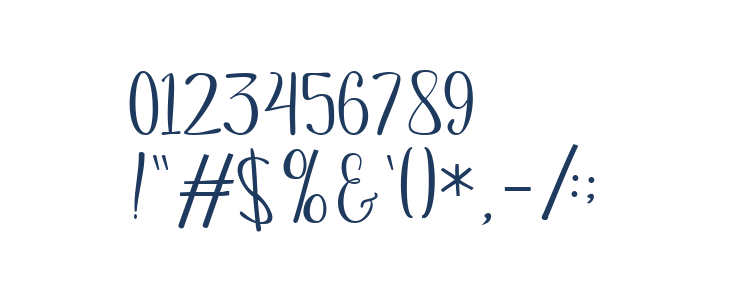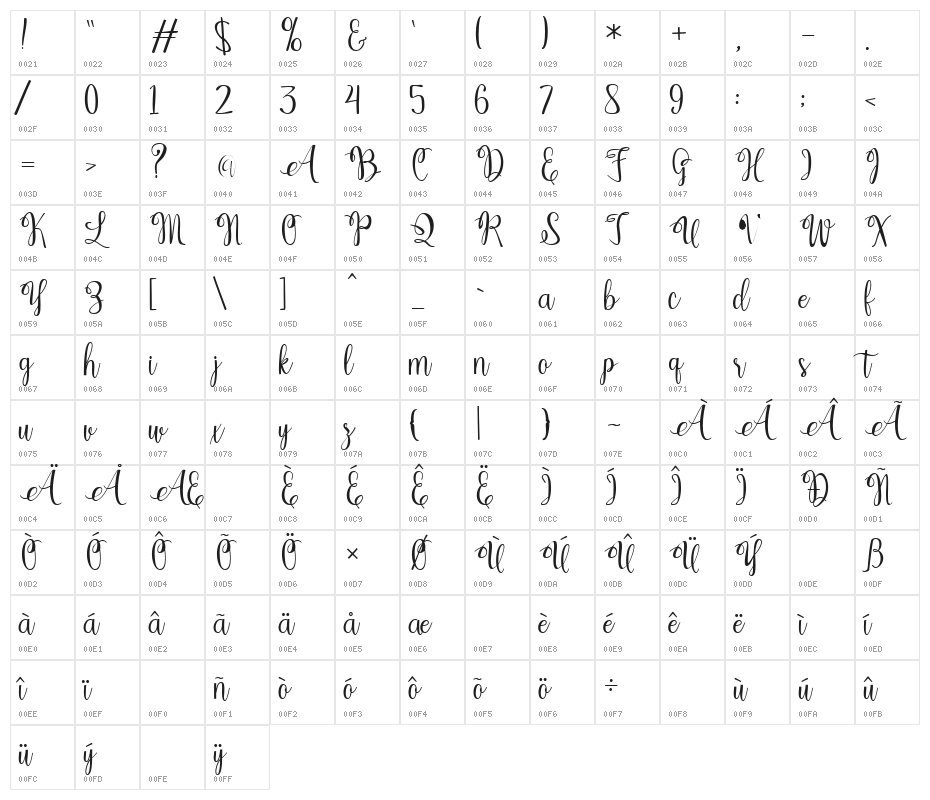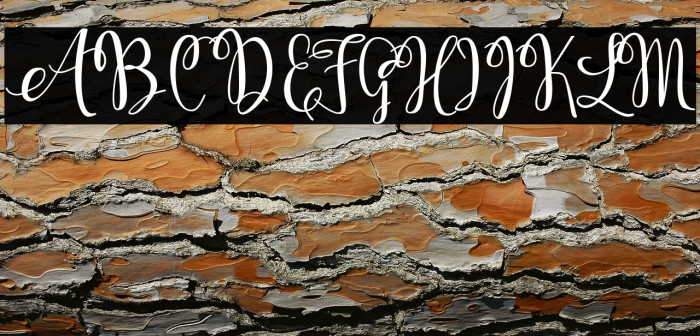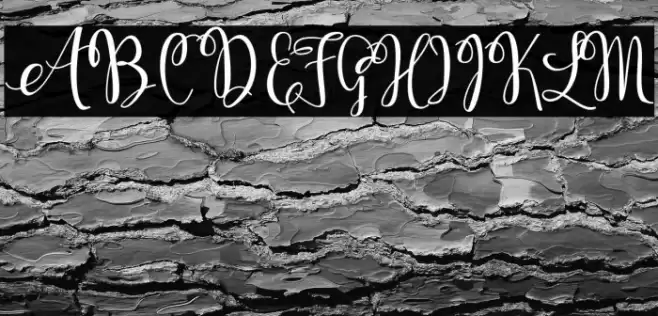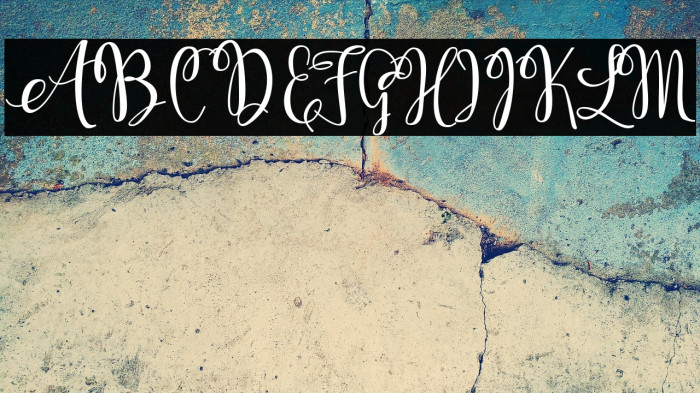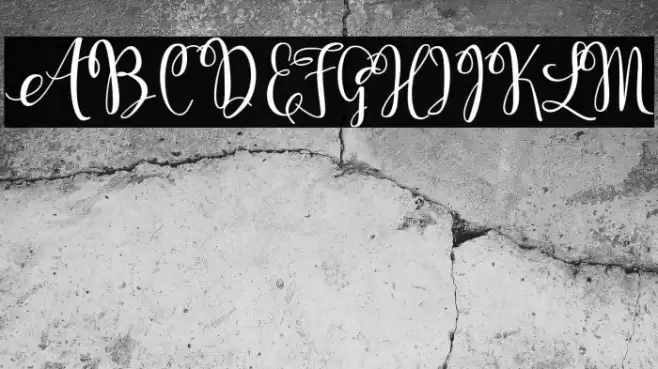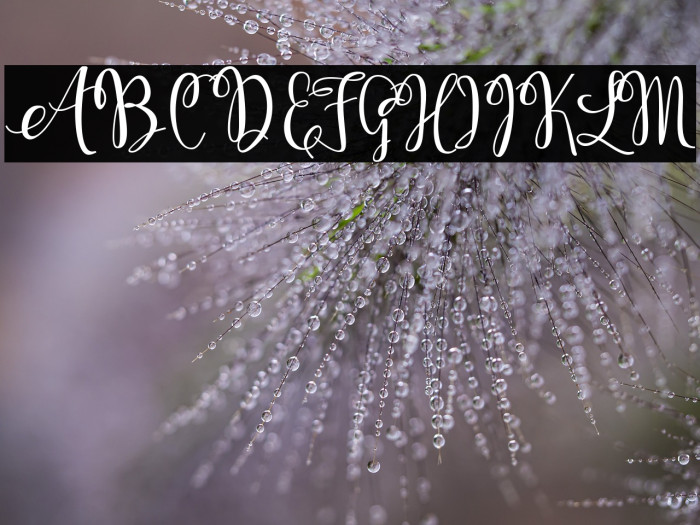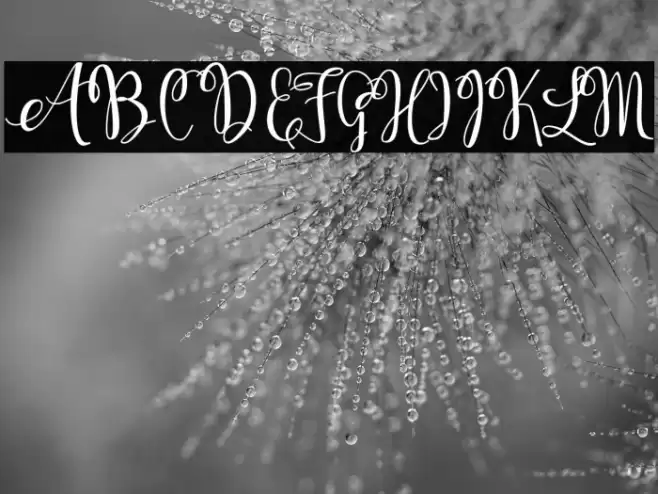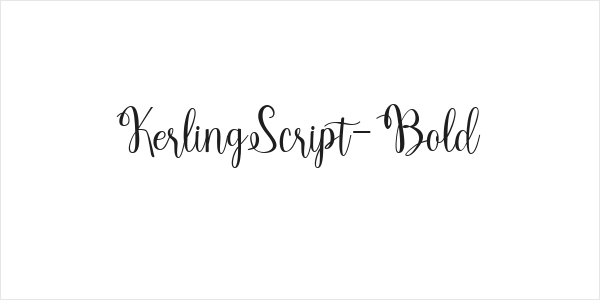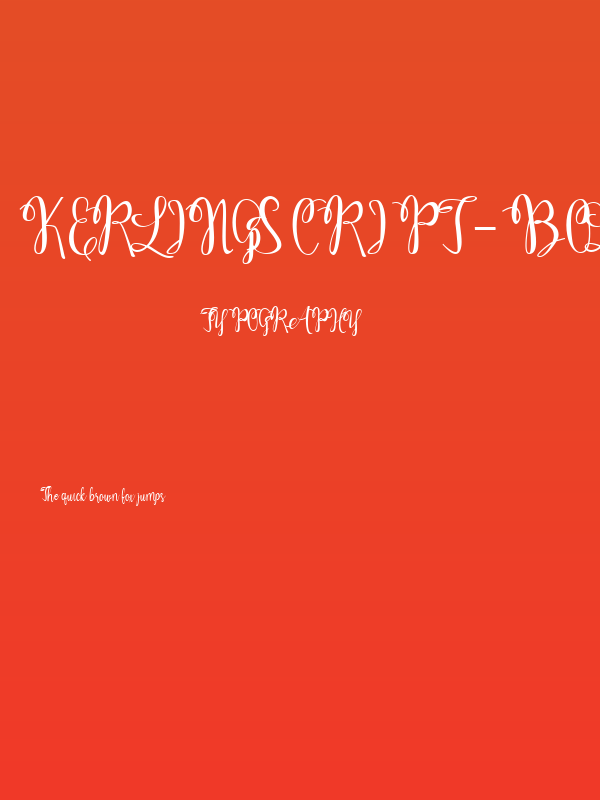
KerlingScript-Bold Font
KerlingScript-Bold Description
This font features a bold, flowing script style with elegant, cursive letterforms. The uppercase letters are ornate and decorative, with intricate loops and swashes that add a touch of sophistication. The lowercase letters maintain a consistent flow, with smooth connections between each character, enhancing readability while retaining a stylish appearance. The numerals are distinct and maintain the script's fluidity, making them easily recognizable. Special characters are designed with the same attention to detail, ensuring they blend seamlessly with the rest of the font. This font is perfect for projects that require a personal, handwritten touch, such as invitations, greeting cards, or branding materials.